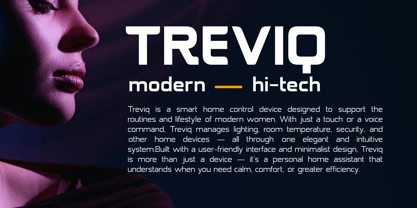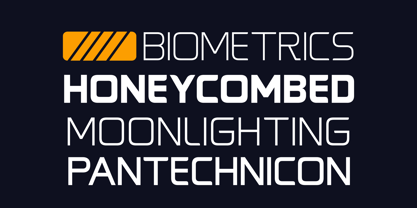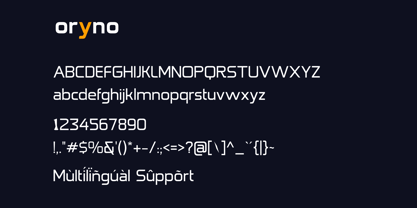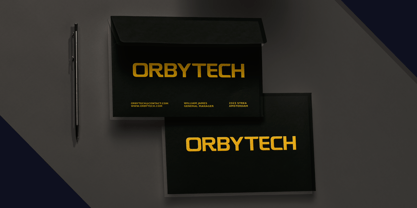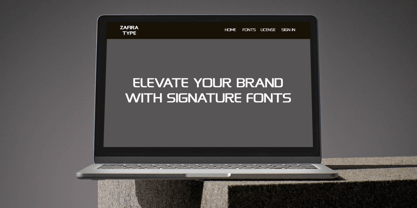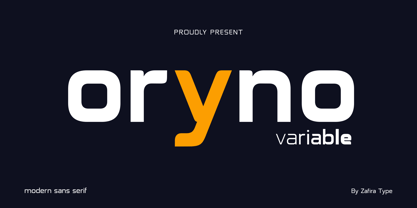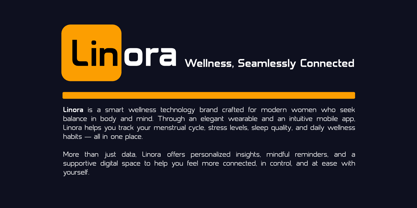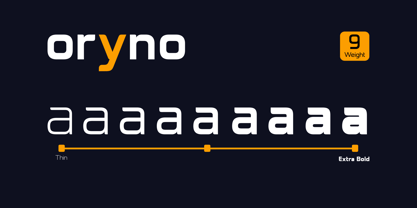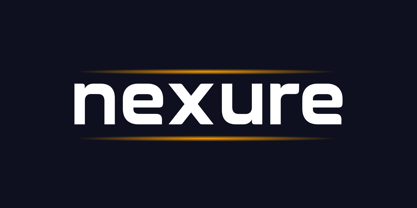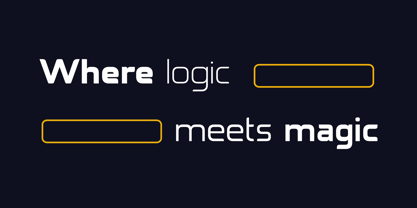
Oryno Variable
by Zafira Type
The Oryno Variable Font Family was designed by Su Hirno and published by Zafira Type. Oryno Variable contains 1 styles. More about this family
Oryno Variable is a modern sans serif typeface designed for clarity and versatility. With 9 distinct weights ranging from Thin to Black, Oryno offers a full typographic spectrum suitable for everything from minimal layouts to bold headlines. Its clean lines, balanced proportions, and contemporary aesthetic make it an ideal choice for branding, editorial, UI design, and more. Whether used in print or digital, Oryno delivers strong visual impact and professional readability